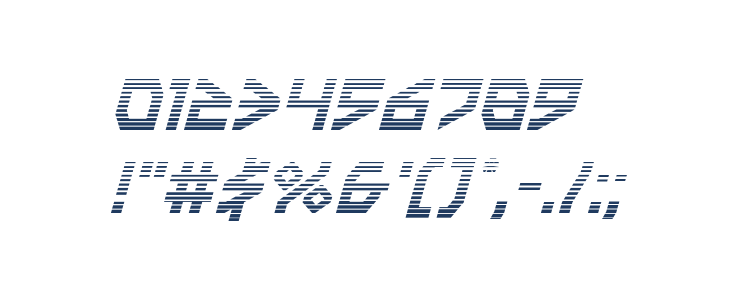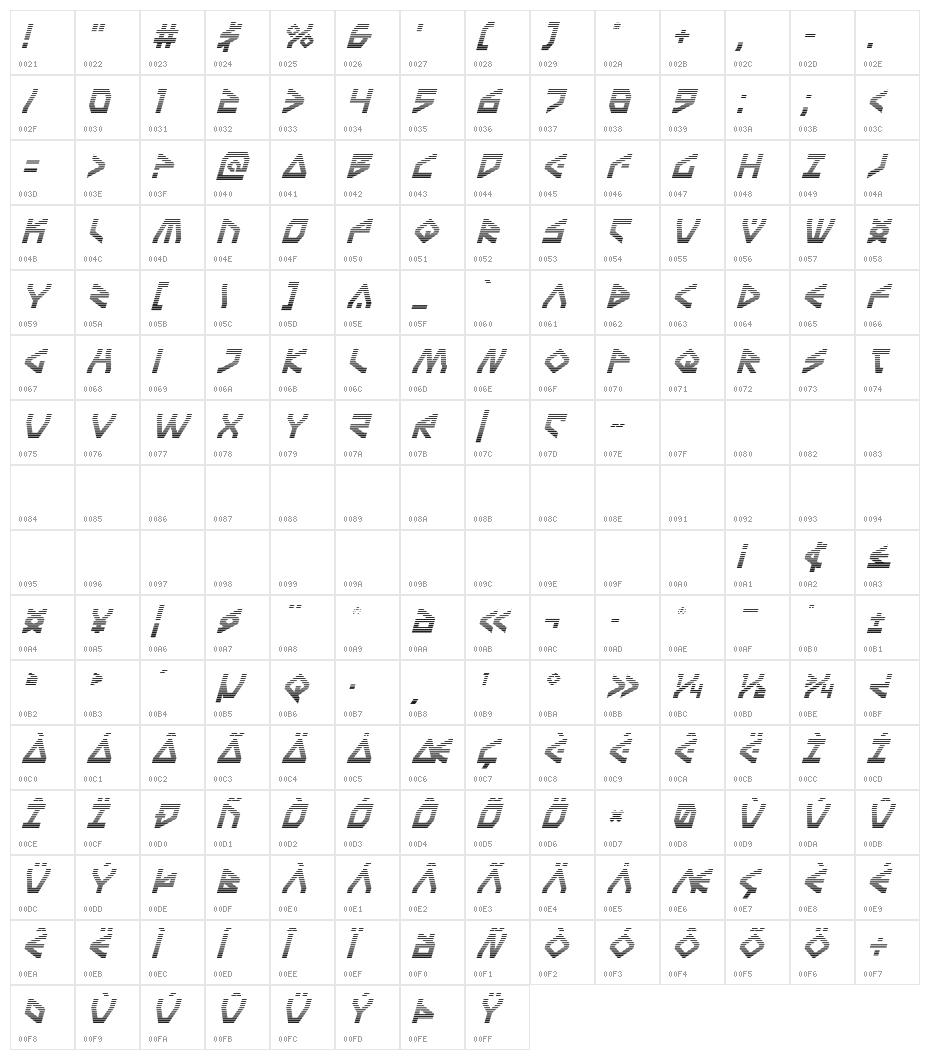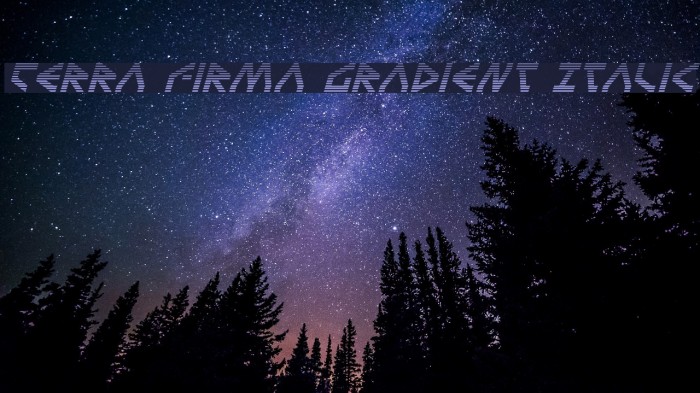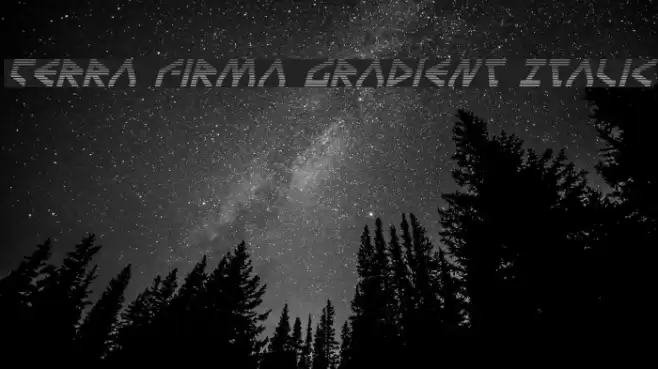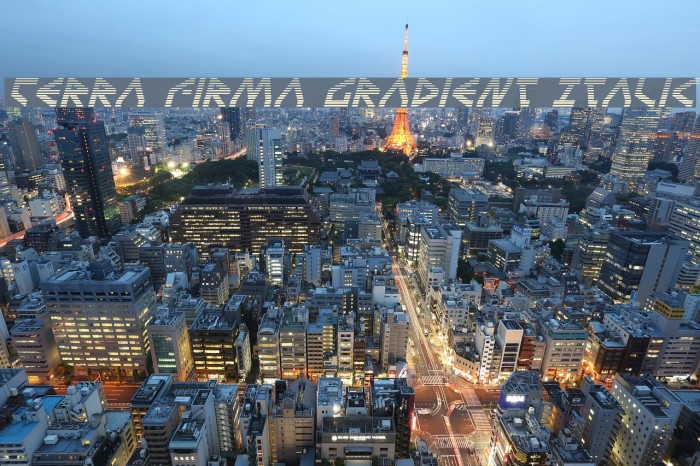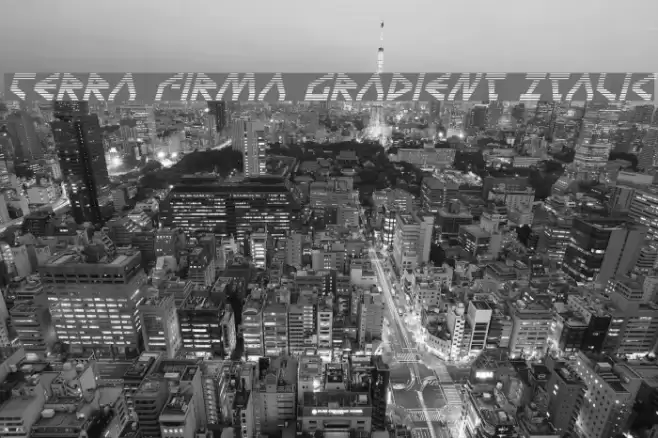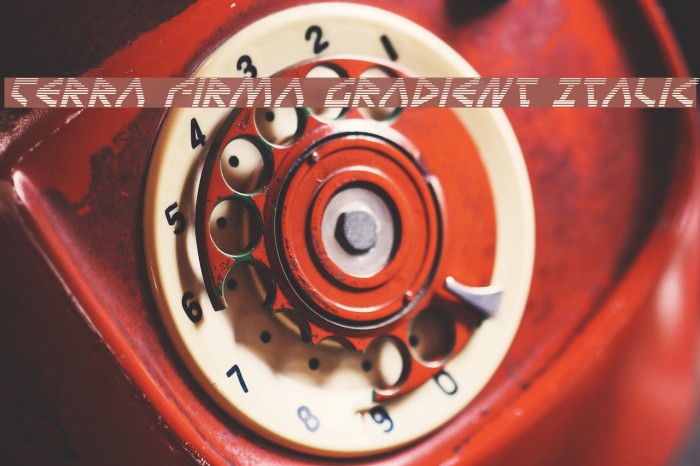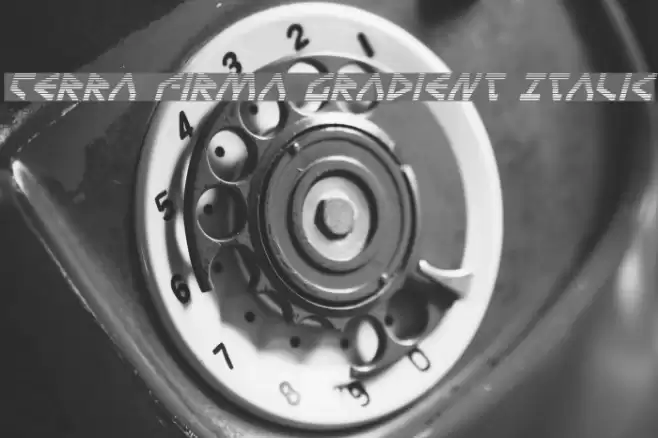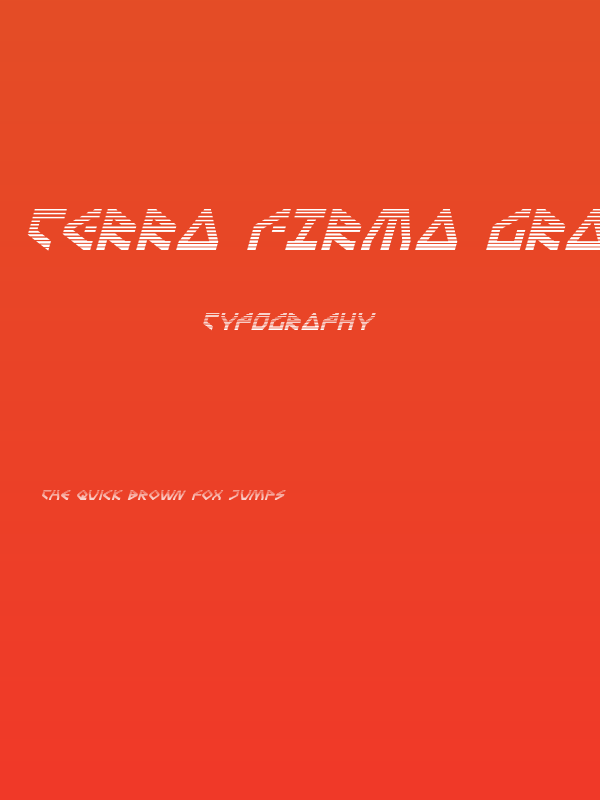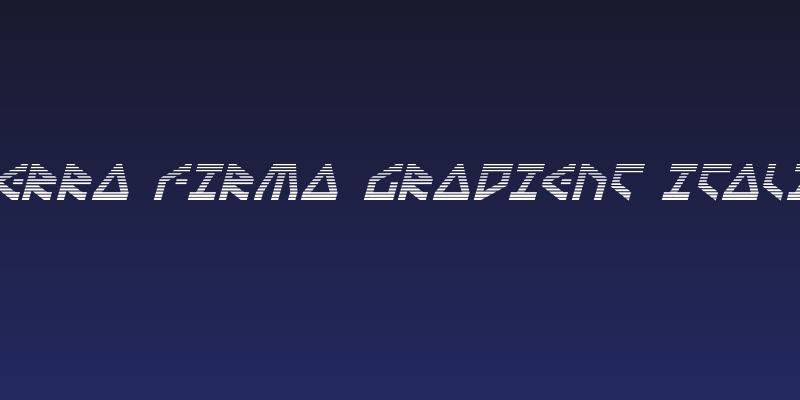
Terra Firma Gradient Italic Font
Terra Firma Gradient Italic Description
This font features a futuristic and dynamic design with a distinct gradient effect. The characters are composed of horizontal lines that create a sense of movement and energy. The italicized style adds a forward-leaning, progressive feel, making it ideal for modern and tech-oriented projects. Each letter and number is uniquely crafted to maintain readability while showcasing a bold, innovative aesthetic. The special characters are equally stylized, ensuring consistency across all elements. This font is perfect for projects that require a cutting-edge, contemporary look.
| Proposed Projects | Ideal for tech branding, sci-fi posters, video game titles, and modern advertisements. |